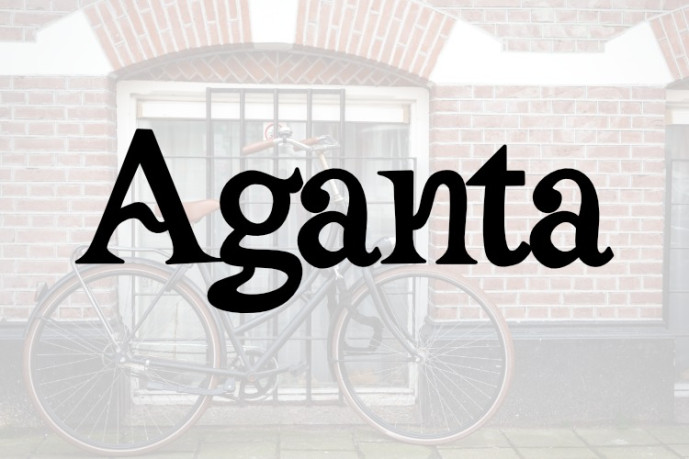
Aganta Font
Designer: Eric
Introduction Aganta is a modern and elegant typeface designed for flexibility and excellent readability across a wide range of media. With its .otf (OpenType Font) file format, this font offers superior cross-platform compatibility, making it an ideal choice for all design software and office applications, including Adobe Creative Suite, Microsoft Office, and other design software.